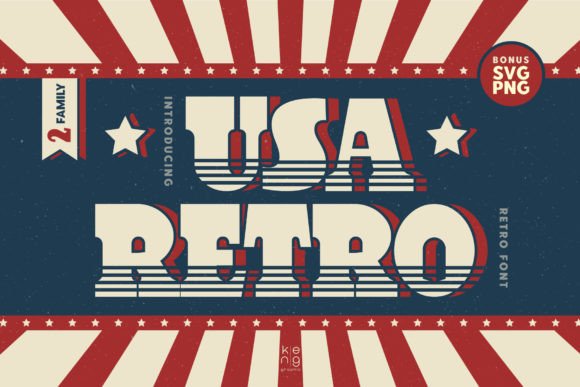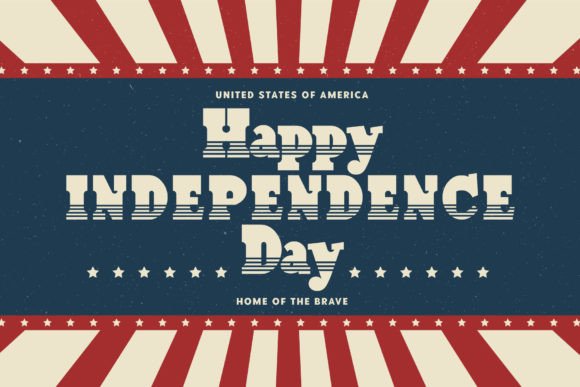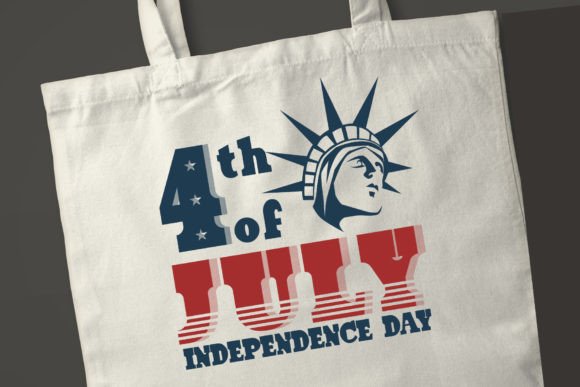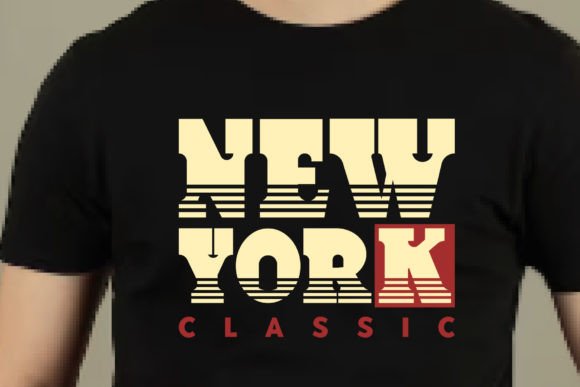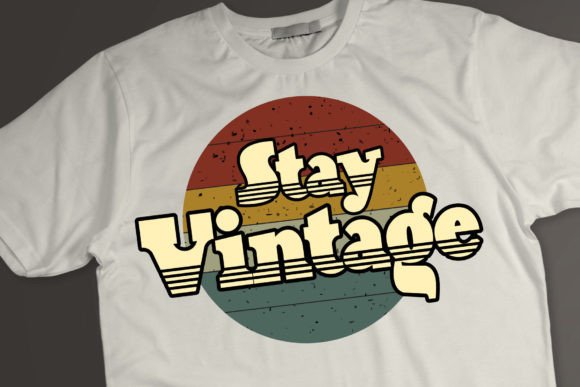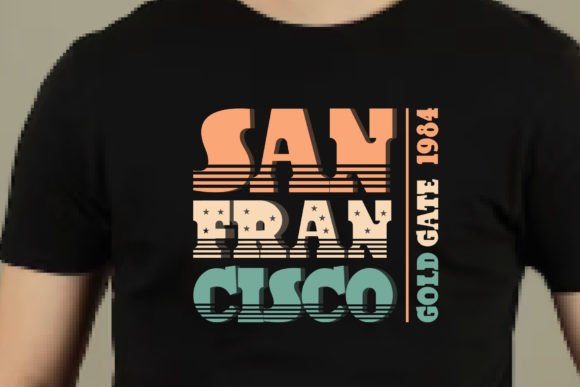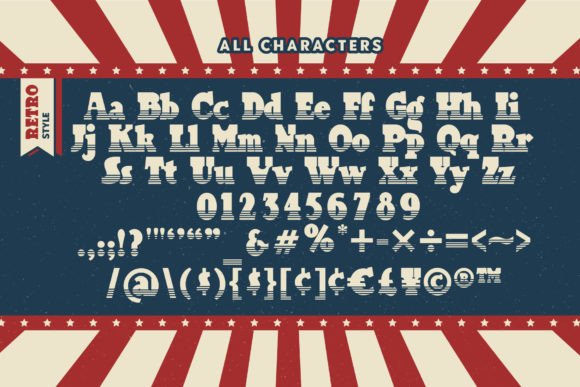
Usa Retro Font
Usa Retro font is a retro vintage font. Inspired by retro letterforms and fonts from the 60s, 70s and 80s, anything written with this font will be instantly recognizable and will grab attention. unique shape Use the fonts shown here to add a retro touch to any design idea you can think of.